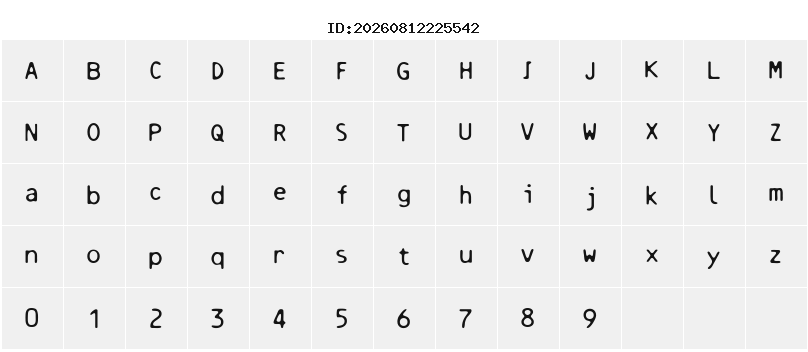
Resbaloso Preview
• Font Name: Resbaloso
• Full Font Name: Resbaloso
About Resbaloso.ttf
Resbaloso.ttf is a modern, elegant sans-serif font designed for ultimate readability and visual harmony. Perfect for branding, headlines, web design, and print materials.